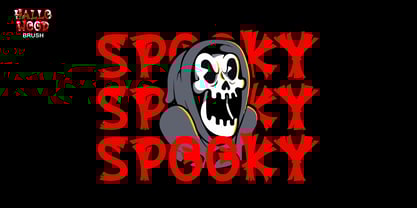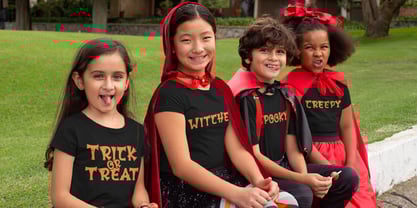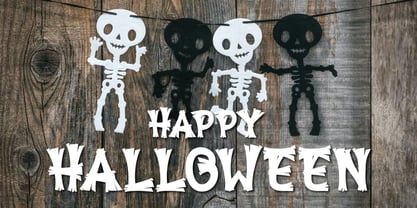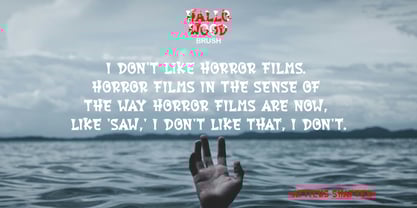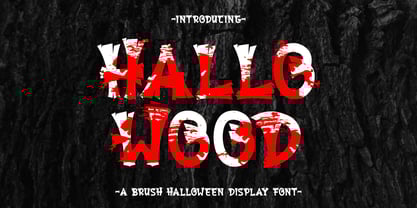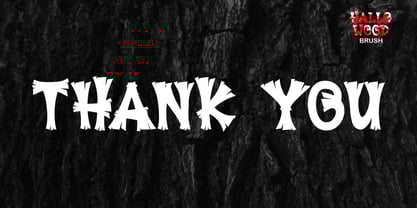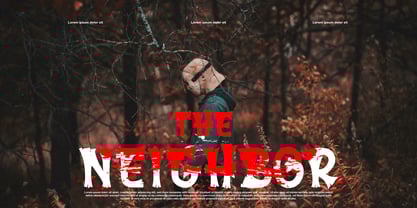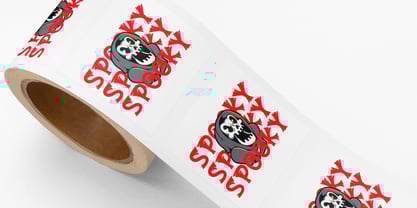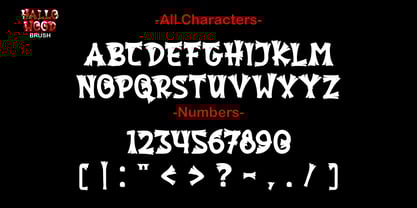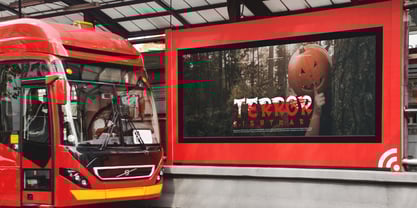
Hallowood Brush
The Hallowood Brush Font Family was designed by Gugun Gunawan and published by Patlot Digital Studio. Hallowood Brush contains 1 styles. More about this family
Brush up your Halloween designs with Hallowood Brush, a wood-inspired display font. Emanating the uncanny spirit of Halloween, this font is perfectly concocted for injecting an element of eeriness into your designs. Its distinctive finish makes it the ideal choice for hauntingly beautiful horror-themed posters, unsettling movie fonts, shiver-inducing apparel designs, chilling craftwork, and other spine-tingling festive applications. Hallowood Brush is your ultimate typeface to spookify creations and capture the essence of Halloween.